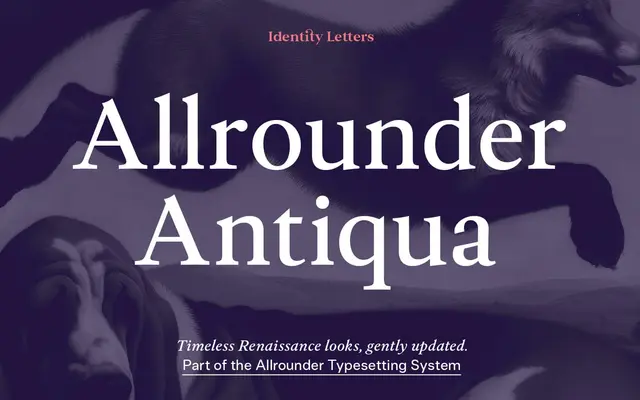
Allrounder Antiqua
Identity Letters · Moritz Kleinsorge
A Granjon-inspired old-style serif in four weights with true italics, part of the broader Allrounder superfamily designed to pair with Allrounder Grotesk.
Rooted in Moritz Kleinsorge's revival study of Robert Granjon's Ascendonica Romain from 1567, Allrounder Antiqua evolved beyond strict historical revival into a contemporary old-style serif with classical proportions. Four weights from Book to Bold come with corresponding true italics and a thorough OpenType feature set including small caps, six figure sets, swash alternates and support for over 200 Latin-based languages. Shared vertical metrics and colour with Allrounder Grotesk make the two families directly interchangeable within the same layout.
Described explicitly as an old-style serif, rooted in a revival of Robert Granjon's 'Ascendonica Romain' from 1567, placing it firmly in the Renaissance/Garalde tradition.